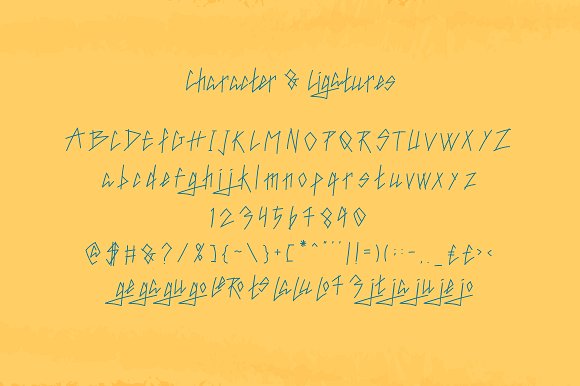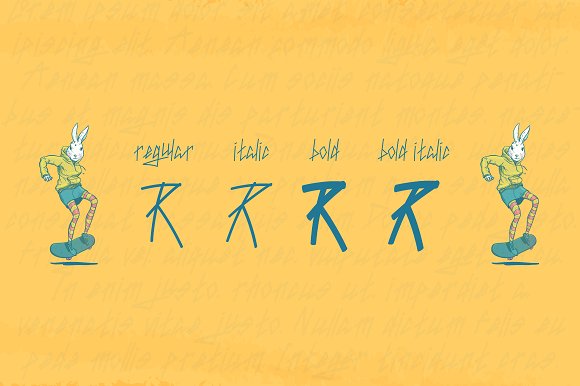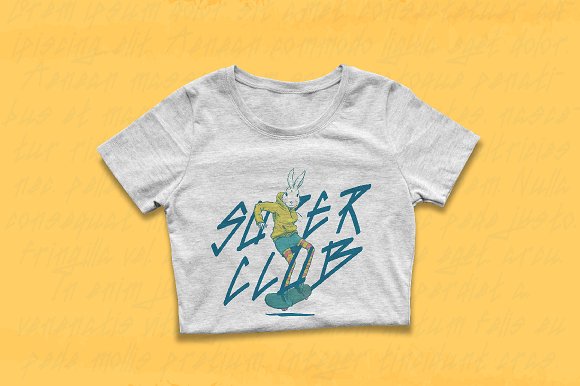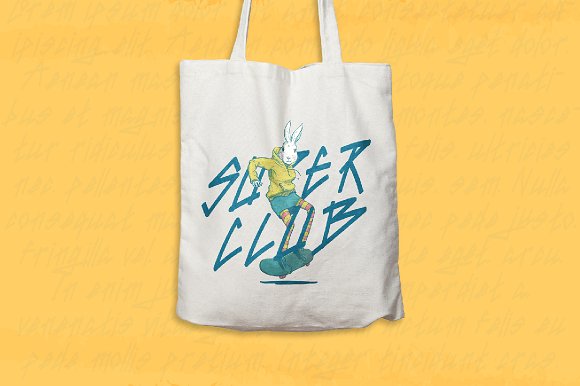
Jarots Font
This font is inspired from the spontaneous expression of youth. These fonts come with a regular, italic, bold and a bold italic version! It applies itself perfectly to logo designs, branding projects, posters and way more, covering a wide variety of niches.